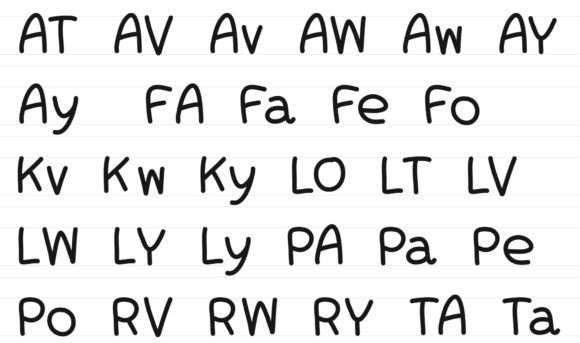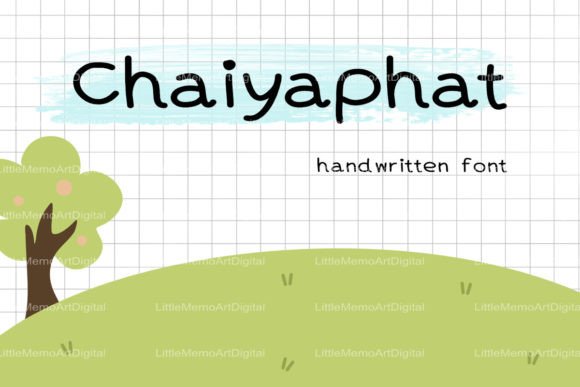
Introducing Chaiyaphat Font: The Sweet and Quirky Handwritten Font You Need!
Are you a designer or crafter looking for a unique and playful font to add a personal touch to your projects? Look no further than Chaiyaphat Font! This sweet and quirky handwritten font is sure to bring a smile to your face and inspire your creativity. In this article, we’ll dive into the world of Chaiyaphat Font and explore how you can use it to take your crafty ideas to the next level.
What is Chaiyaphat Font?
Chaiyaphat Font is a beautiful, hand-written font that exudes a sense of playfulness and charm. Its quirky and irregular strokes give it a unique, one-of-a-kind feel that’s perfect for adding a personal touch to your designs. Whether you’re working on a DIY project, creating social media graphics, or designing a brand identity, Chaiyaphat Font is sure to make your work stand out.
Characteristics of Chaiyaphat Font
So, what makes Chaiyaphat Font so special? Here are some of its key characteristics:
- Handwritten feel: Chaiyaphat Font has a genuine, handwritten feel that’s perfect for creating a personal connection with your audience.
- Quirky and playful: The font’s irregular strokes and unique letterforms give it a playful, whimsical feel that’s sure to delight.
- Highly legible: Despite its quirky nature, Chaiyaphat Font is highly legible, making it perfect for use in a variety of applications.
- Versatile: Chaiyaphat Font can be used in a wide range of projects, from DIY crafts to professional designs.
How to Use Chaiyaphat Font in Your Designs
Now that we’ve covered the basics of Chaiyaphat Font, let’s talk about how you can use it in your designs. Here are some ideas to get you started:
- DIY projects: Add a personal touch to your DIY projects, such as handmade cards, gift tags, and scrapbook pages.
- Social media graphics: Use Chaiyaphat Font to create eye-catching social media graphics that showcase your brand’s personality.
- Branding and identity: Incorporate Chaiyaphat Font into your brand identity, such as on your logo, business cards, or website.
- Stationery and paper crafts: Add a touch of whimsy to your stationery and paper crafts, such as invitations, thank-you cards, and journal pages.
Tips for Pairing Chaiyaphat Font with Other Fonts
When working with Chaiyaphat Font, you may want to pair it with other fonts to create visual interest and contrast. Here are some tips for pairing Chaiyaphat Font with other fonts:
- Pair with a sans-serif font: Pair Chaiyaphat Font with a clean, sans-serif font to create a nice contrast between the playful, handwritten font and a more modern, streamlined font.
- Use a script font: Pair Chaiyaphat Font with another script font to create a cohesive, handwritten look.
- Experiment with font sizes: Play around with different font sizes to create visual interest and hierarchy in your design.
| Font Name | Chaiyaphat Font |
| Author | LittleMemoArtDigital |
In conclusion, Chaiyaphat Font is a sweet and quirky handwritten font that’s perfect for adding a personal touch to your designs. Its unique, playful feel makes it ideal for a wide range of projects, from DIY crafts to professional designs. Whether you’re a designer or crafter, Chaiyaphat Font is sure to inspire your creativity and bring a smile to your face. So why not give it a try and see the amazing results for yourself?